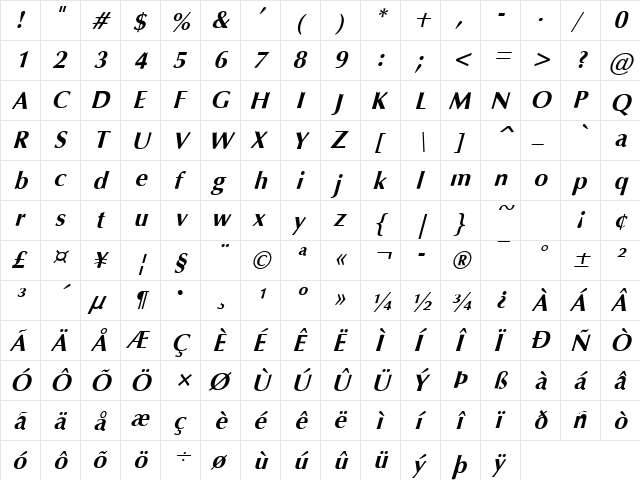
Eterna Bold Italic Font Preview
Design Context for Eterna Typeface
Eterna takes a measured approach to typography — its balanced proportions and neutral character make it a reliable workhorse for both digital and print work. Its italic angle brings a sense of urgency and motion to the letterforms. The heavy weight commands attention and anchors typographic hierarchies.
Pro Tip: Try Eterna for annotation and caption copy alongside an upright companion — the contrast in angle creates a dynamic but ordered typographic system.